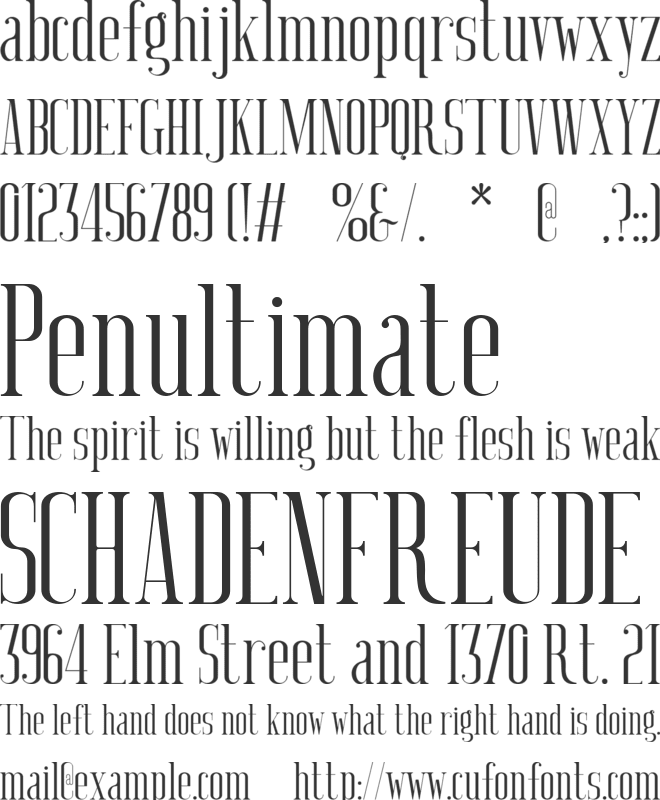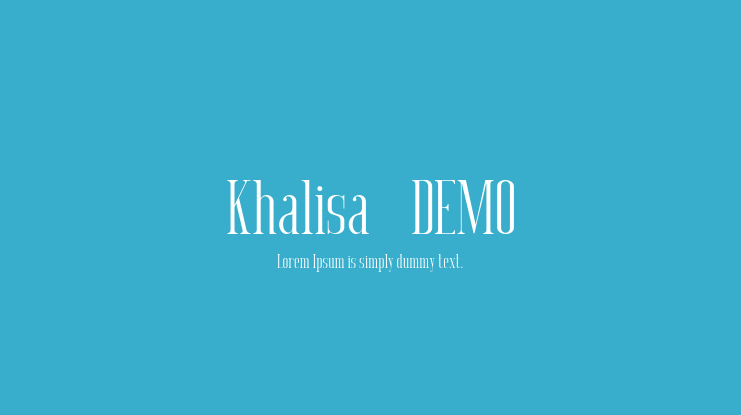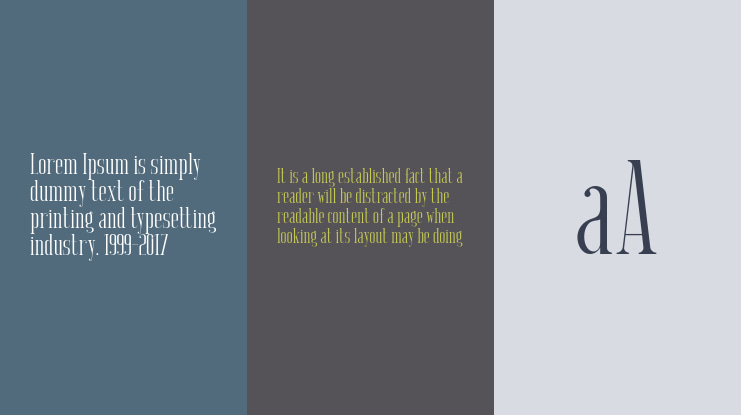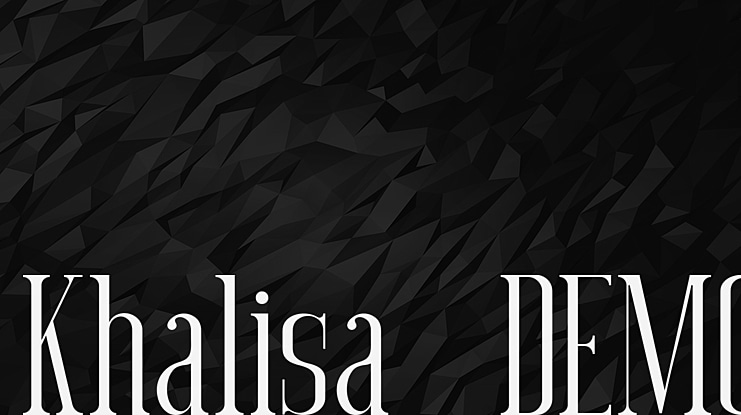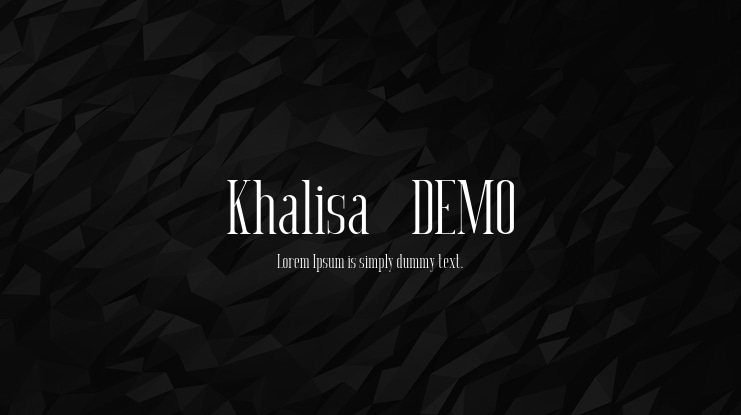
Khalisa_DEMO Font
OVERVIEW Khalisa Serif is a modern classic serif typeface with an individual approach in every single letter. Khalisa will perfect for many projects: fashion, magazines, logo, branding, photography, wedding invitations, quotes, blog header, poster, advertisements, etc.